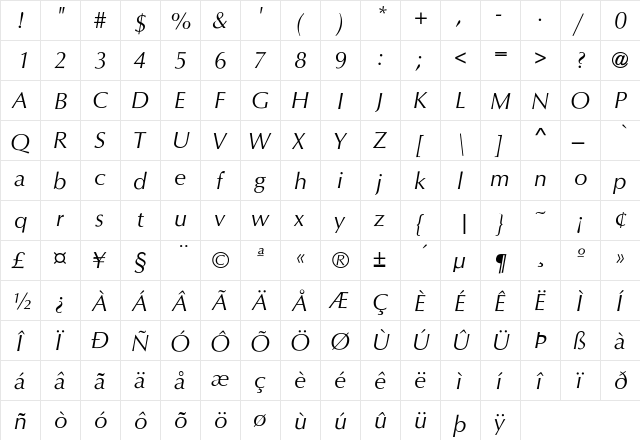
Optimum-RomanItalic Regular
Design Context for Optimum-RomanItalic Typeface
Optimum-RomanItalic offers clean, dependable letterforms without strong stylistic allegiance, making it a practical choice for designers who need flexibility. The dynamic lean of this cut emphasises speed and emphasis in any layout.
Pro Tip: Try Optimum-RomanItalic for annotation and caption copy alongside an upright companion — the contrast in angle creates a dynamic but ordered typographic system.